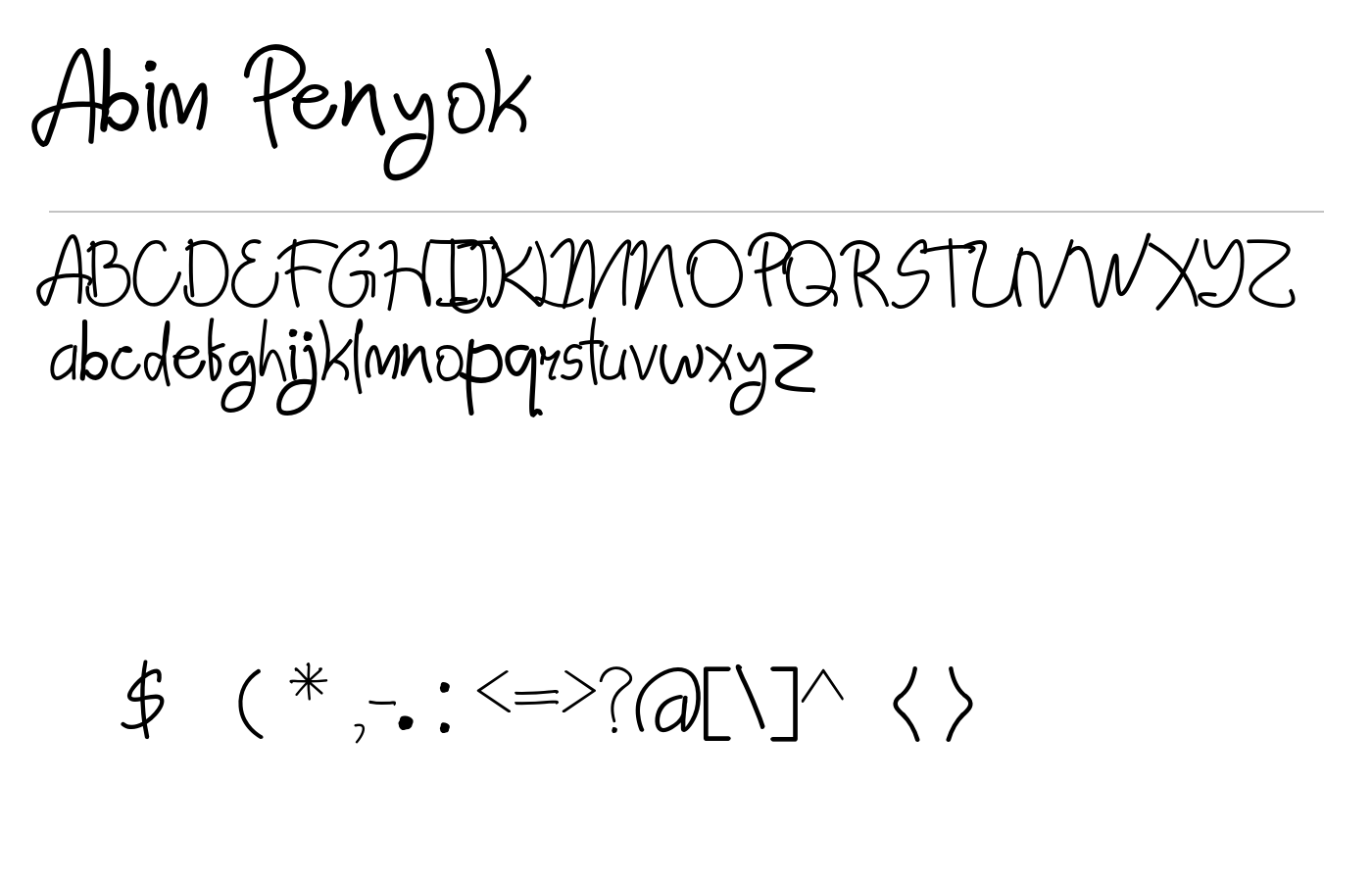
Abim Penyok is a playful, handwritten script font with a casual, slightly quirky character. Its thin, uneven strokes and whimsical letterforms create a friendly and informal feel, making it perfect for creative projects, personal branding, or any design seeking a relaxed and approachable tone. This font works well for logos, invitations, and social media where a unique, human touch is desired.
Abim Penyok Font